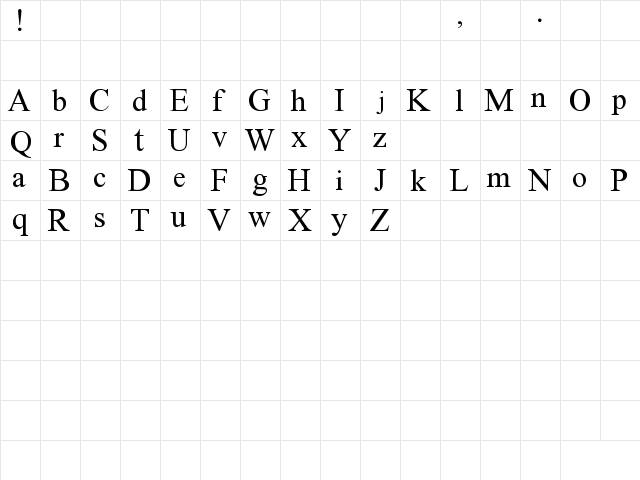
Instant Message Freak Regular
Design Context for Instant Message Freak Typeface
Instant Message Freak offers clean, dependable letterforms without strong stylistic allegiance, making it a practical choice for designers who need flexibility.
Pro Tip: Use Instant Message Freak in both headline and body roles to test its range before committing to a single application.